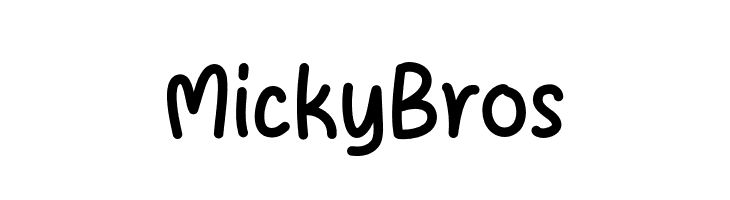
A bold, playful, hand-drawn font with a whimsical and friendly style.
( Fonts by VinType )
A playful, bold font with a whimsical, hand-drawn style.
( Fonts by Modestype Studio )
A bold, geometric font with an edgy and dynamic style.
( Fonts by Hanoded )
A playful, hand-drawn font with bold, irregular letterforms and unique scissor motifs.
( Fonts by Darrell Flood )
A bold, rounded, and playful italic font with clover-like elements.
( Fonts by Darrell Flood )